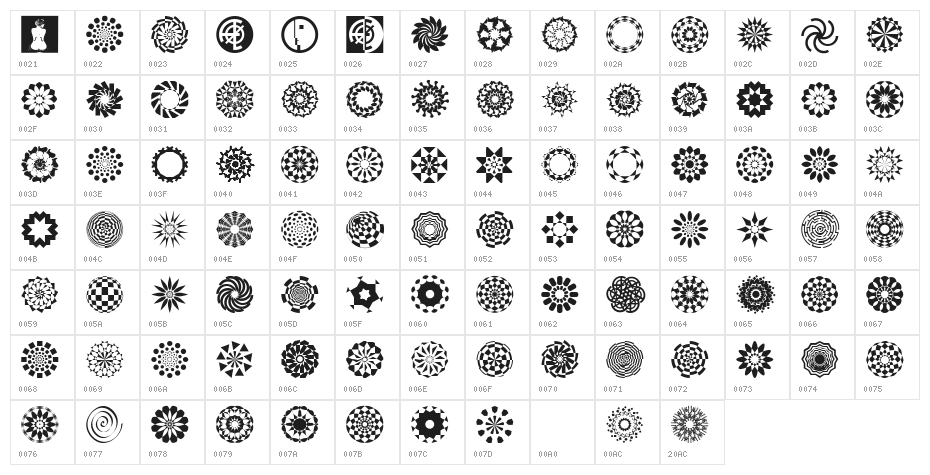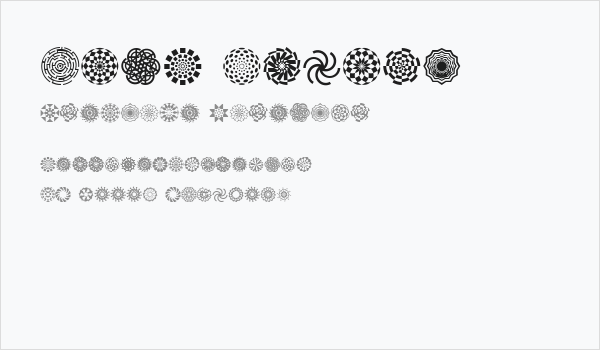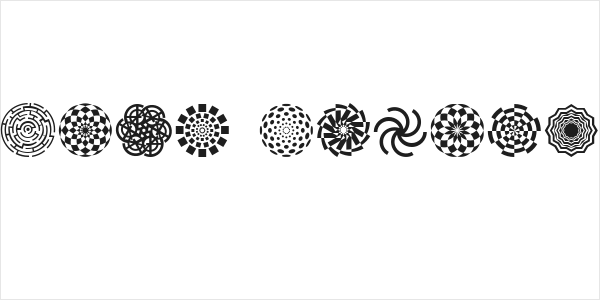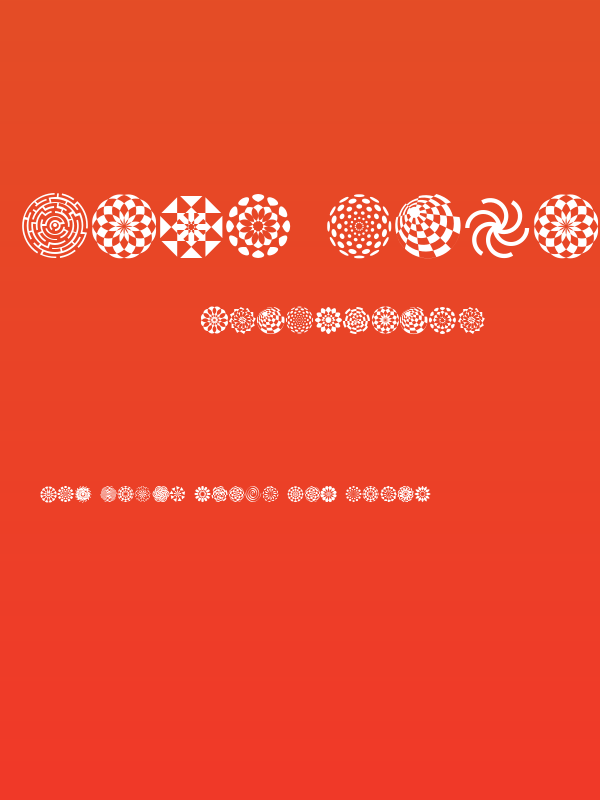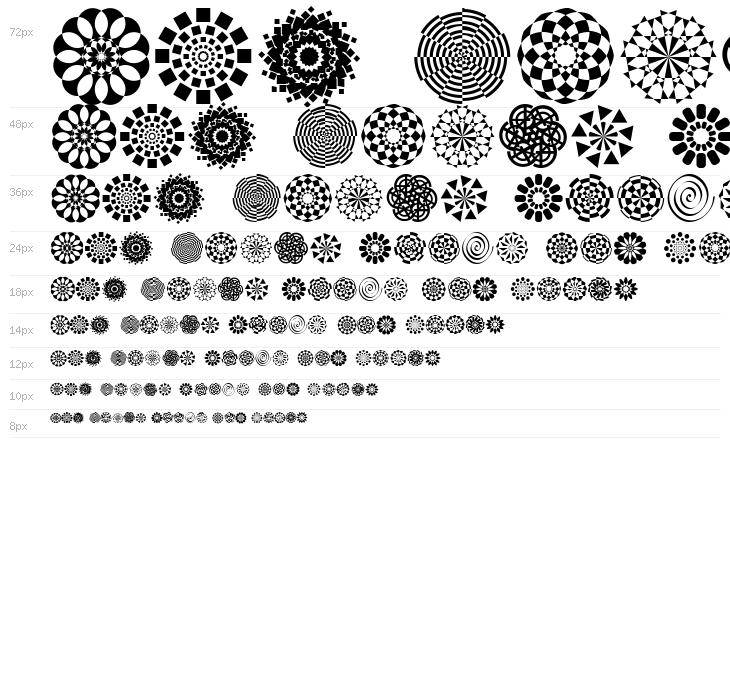
Wach Op-Art Font
Wach Op-Art Description
A collection of bold, high-contrast, circular geometric symbols and patterns inspired by optical art, featuring repetitive shapes, spirals, checkers, and starbursts in black and white. Each glyph is unique and decorative, with a strong visual impact and no traditional letterforms.
| Overall Style | Decorative, Op Art, Modern |
| Use Case | Logos, Posters, Decorative graphics, Branding |
| Proposed Projects | Posters, album covers, branding, packaging, digital art, backgrounds, decorative elements. |